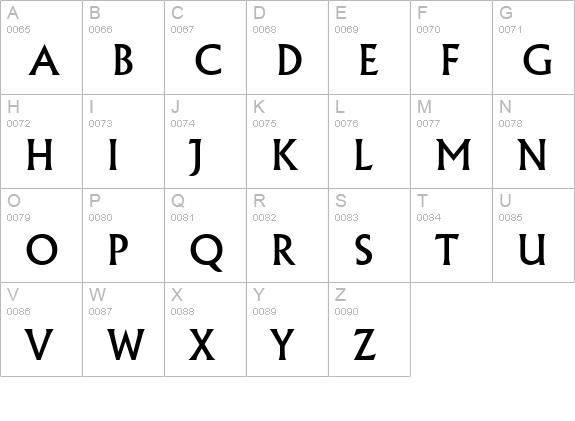
Flair Normal Font Details
Flair Normal is the standard, neutral variant in the Flair typeface family \xE2\x80\x94 well suited to general body text, paragraphs, and standard typographic work.
Flair Normal font exudes elegance and sophistication with its clean lines and timeless design. This versatile typeface is perfect for adding a touch of class to any project, whether it be for print or digital use. The balanced letterforms and subtle curves of Flair Normal make it a popular choice for a wide range of design applications. The best part? Flair Normal is available for free download at FontsMarket.com. This means you can access this stylish font without breaking the bank, making it a valuable addition to your font collection. Don't miss out on the opportunity to elevate your designs with the impeccable style of Flair Normal. Download it today and see the difference it can make in your projects.